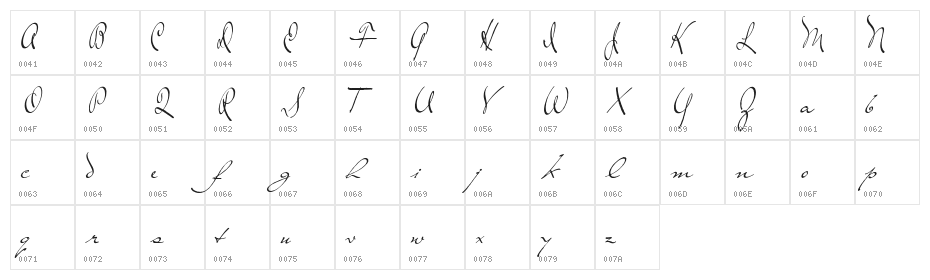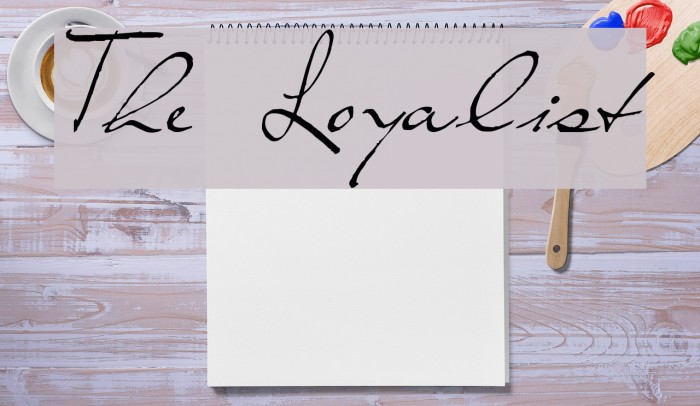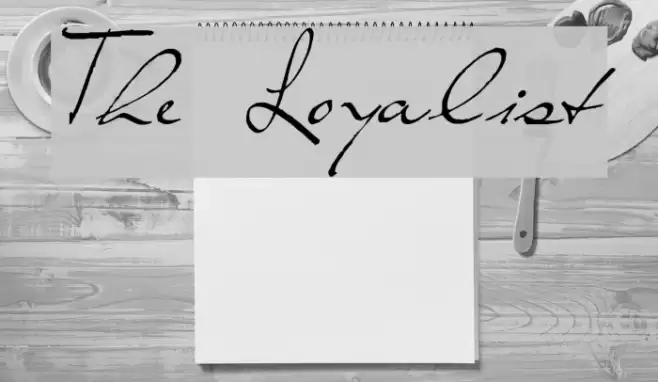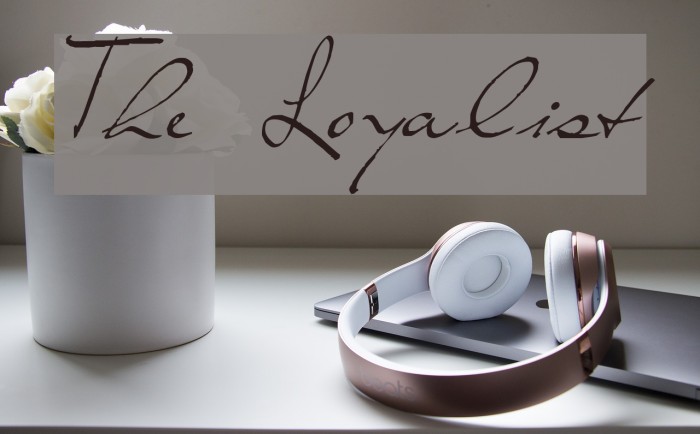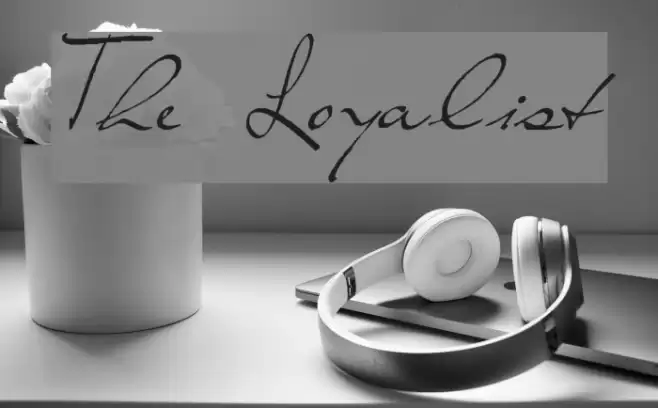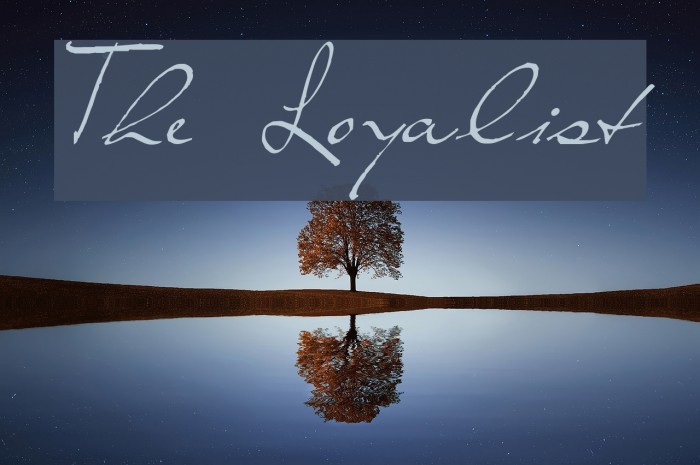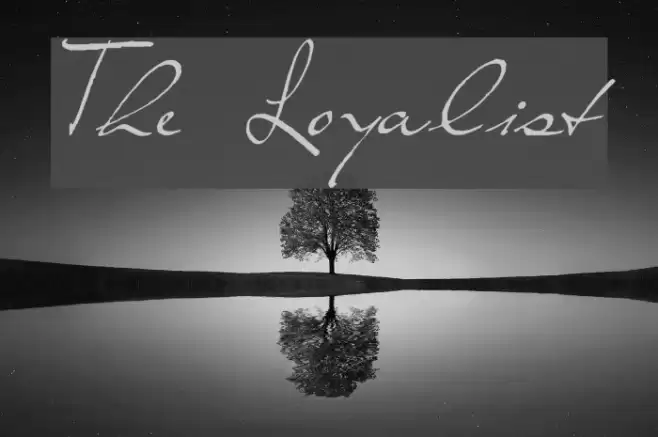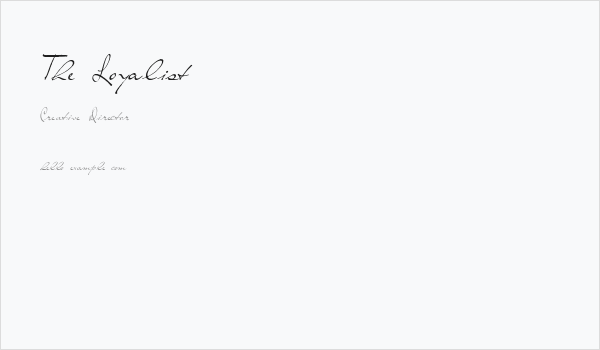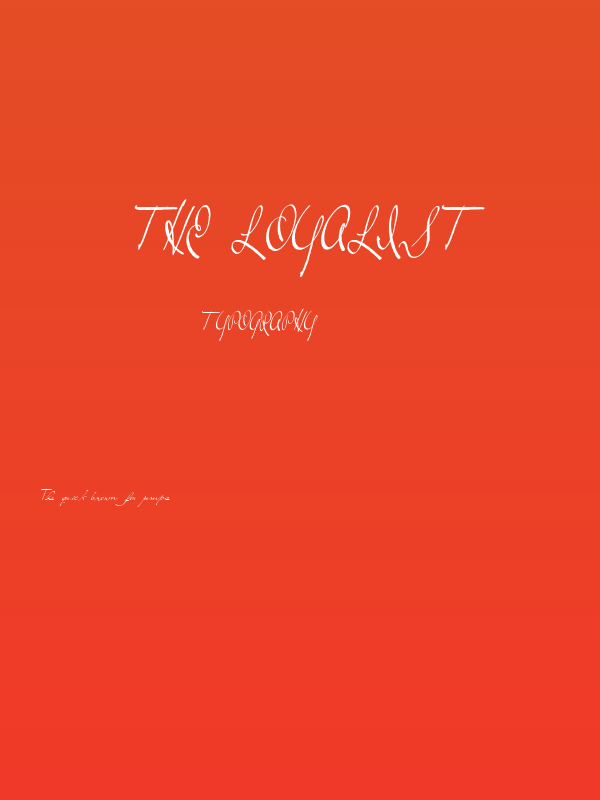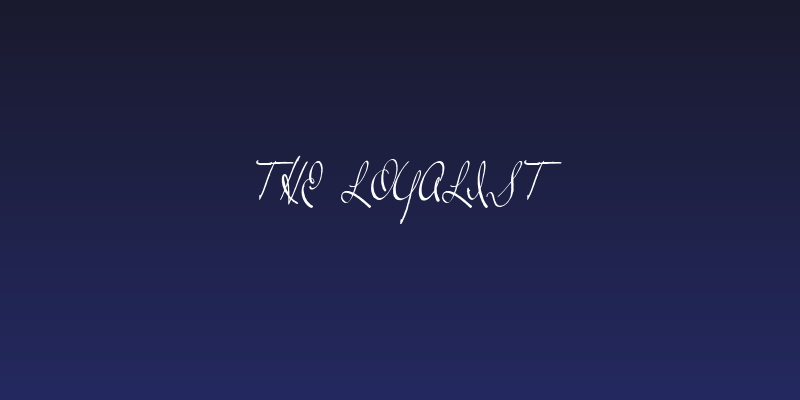
The Loyalist Font
The Loyalist Description
This font exudes a classic and elegant handwritten style, characterized by its flowing and interconnected letterforms. The uppercase letters are bold and expressive, with intricate loops and flourishes that give a sense of sophistication and grace. The lowercase letters maintain a consistent fluidity, enhancing the overall cursive appearance. The strokes vary in thickness, adding a dynamic contrast that emphasizes the artistic nature of the script. This font is perfect for projects that require a touch of elegance and personal flair, such as wedding invitations, formal event programs, or high-end branding materials.
| Proposed Projects | Ideal for wedding invitations, formal event programs, and luxury branding. |